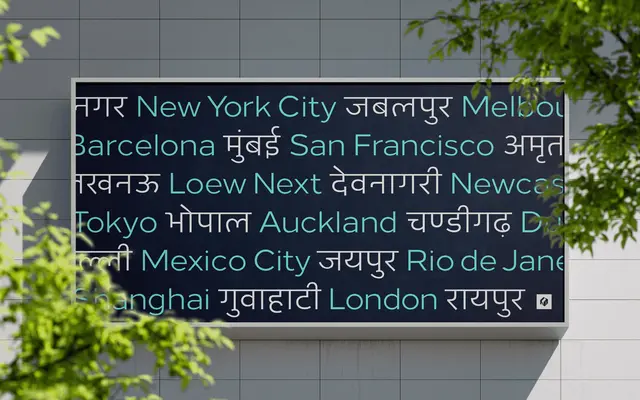
Loew Next Devanagari
A Devanagari extension of Loew Next that adapts its geometric Latin construction to accommodate Hindi, Marathi and Sanskrit scripts within a single cohesive family.
Eight fonts bringing Devanagari support to the geometric sans Loew Next, with consistent weight progression and visual rhythm across both scripts. The extension is intended for multi-script settings where Latin and Devanagari text must coexist without tonal disruption. Readability across both scripts is the stated priority, making it a practical choice for international publishing, branding and digital interfaces.
Loew Next is a geometric sans-serif; this Devanagari extension maintains the same geometric precision and modular construction across both Latin and Devanagari scripts.